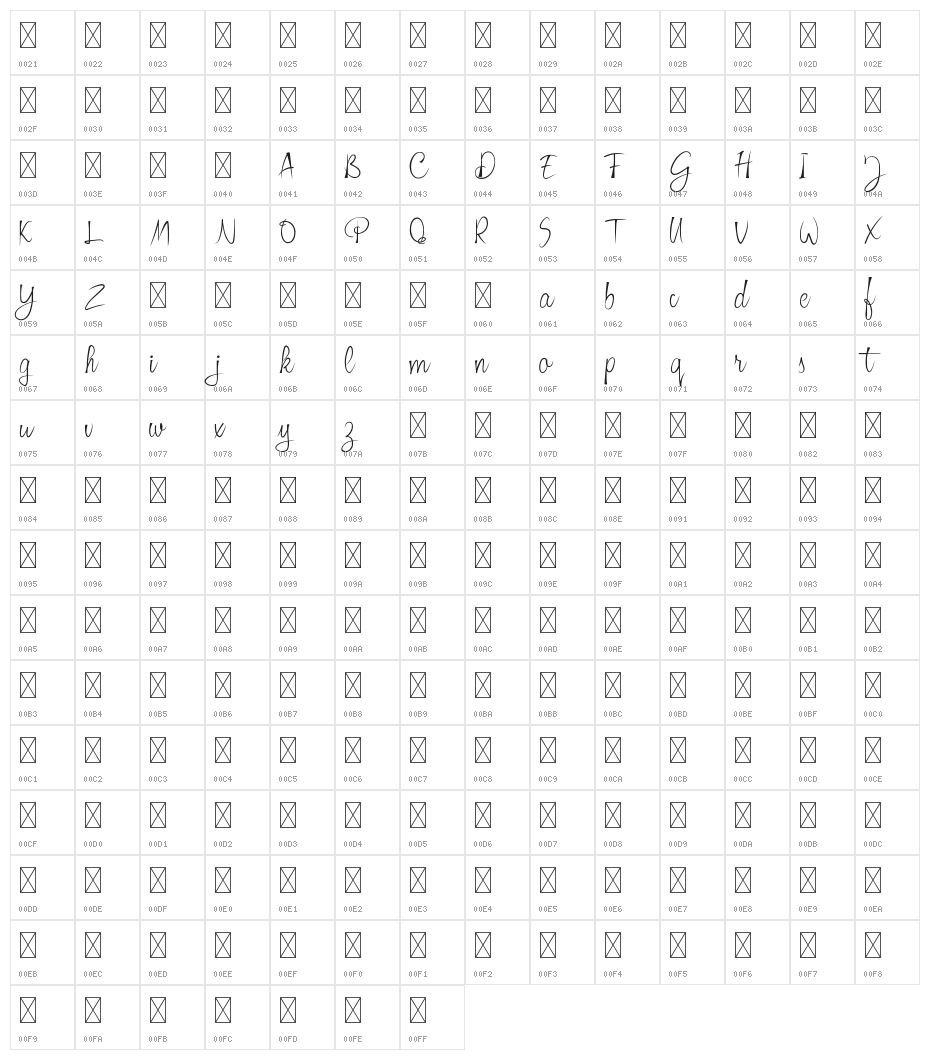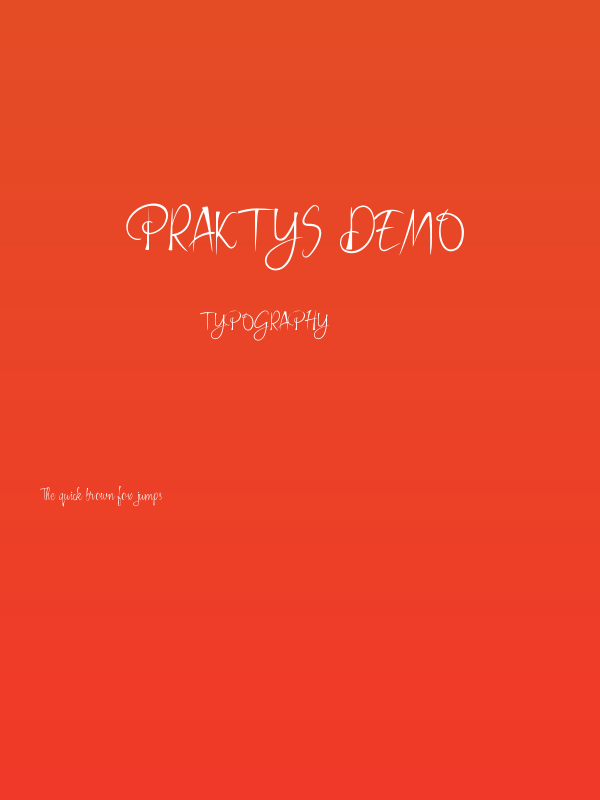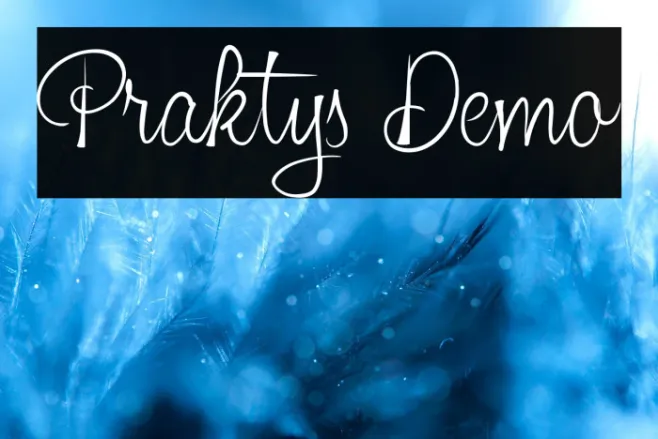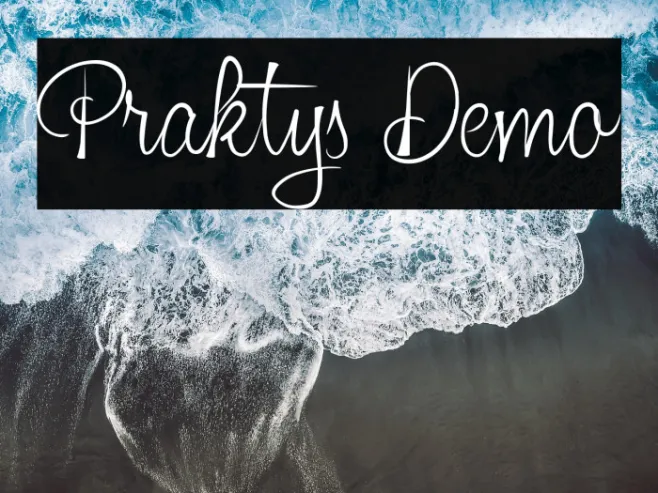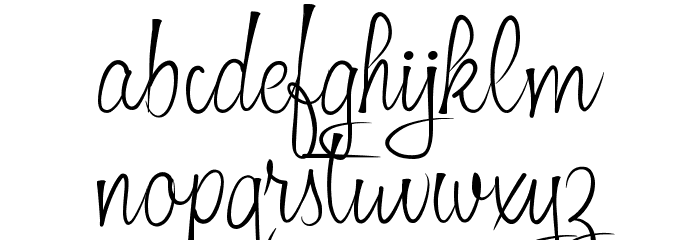
Praktys Demo Font
Praktys Demo Description
This font features an elegant and flowing script style with a modern twist. The uppercase letters are tall and slender, with graceful curves and loops that give a sense of movement and fluidity. The lowercase letters maintain a consistent style, with some characters extending below the baseline, adding to the dynamic appearance. The overall design is sophisticated, making it suitable for projects that require a touch of elegance and creativity. The font's unique character shapes and stylish flair make it stand out, while still being readable and versatile.
| Proposed Projects | Ideal for wedding invitations, branding, logos, and elegant stationery. |